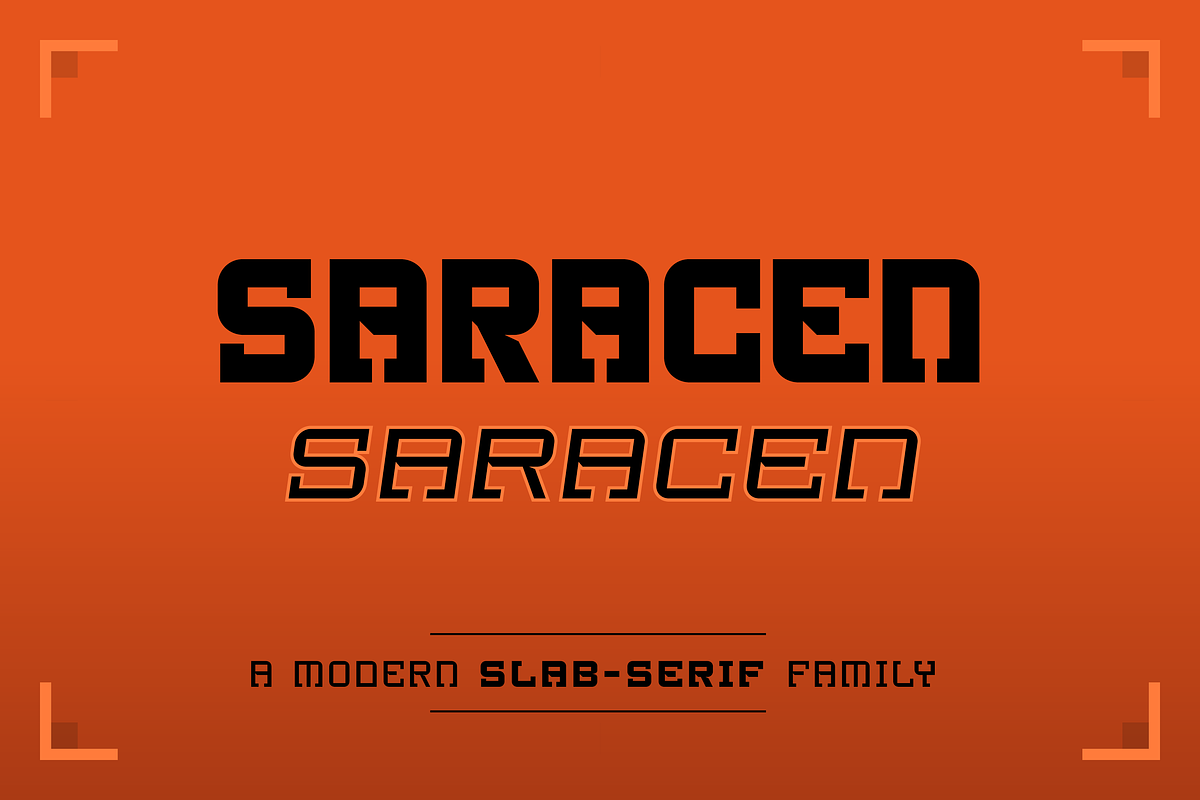
Saracen Slab Serif (24 Fonts) Free Download is a versatile and powerful typeface family that includes 24 different styles, offering a broad range of weights and widths to suit all of your design needs. Featuring bold, clean lines and strong serifs, this font family is perfect for headlines, branding, editorial design, websites, and any project that demands a strong, professional aesthetic.
Saracen Slab Serif (24 Fonts) Free Download is ideal for both digital and print applications. Its varied weights allow you to create typographic hierarchies, making it a great choice for versatile designs that need a modern, robust look. Whether you're working on a corporate project, a magazine layout, or a branding campaign, this font family brings clarity and strength to your work.